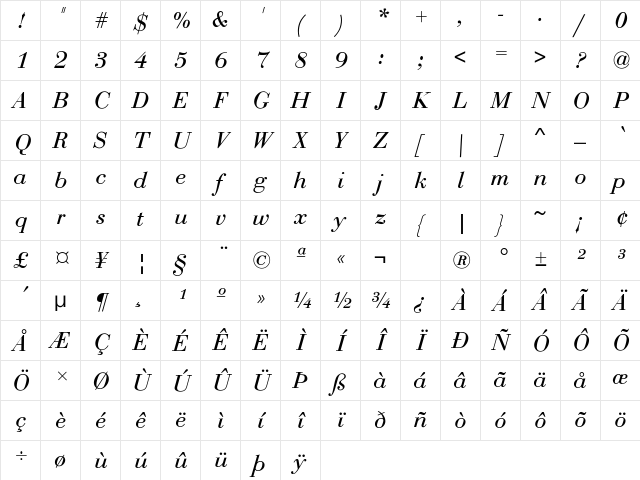
Bodoni-Normal-Italic Regular Free Font
Design Context for Bodoni-Normal-Italic
Bodoni-Normal-Italic is a composed and adaptable typeface that performs quietly and consistently across a wide range of design contexts. The slanted form adds forward momentum and visual energy.
Pro Tip: Use Bodoni-Normal-Italic for emphasis, pull quotes, and subheadings where its slanted energy can add rhythm to the layout.